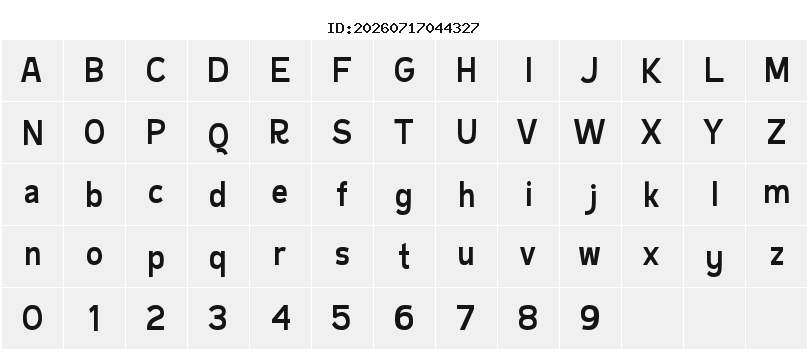
Burbin Casual NC Preview
• Font Name: Burbin Casual NC
• Full Font Name: Burbin Casual NC
About Burbin Casual NC.ttf
Burbin Casual NC.ttf is a modern, elegant sans-serif font designed for ultimate readability and visual harmony. Perfect for branding, headlines, web design, and print materials.